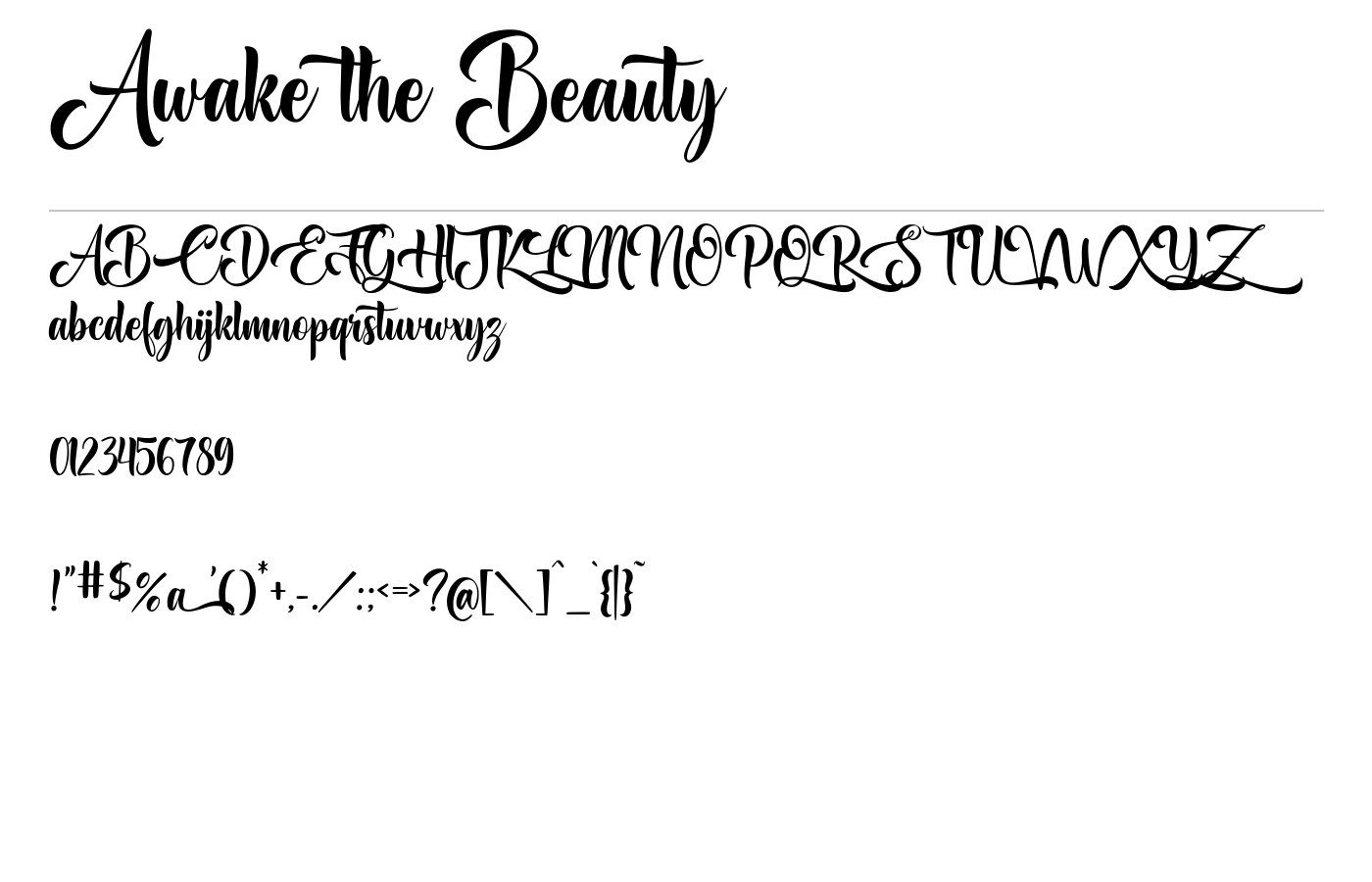
Awake the Beauty is an elegant, script-style font with flowing, brush-like strokes that convey a sense of grace and sophistication. Its bold weight combined with smooth curves and decorative swashes makes it perfect for luxury branding, invitations, and eye-catching headlines, adding a refined, artistic touch to any design. This font’s distinct personality shines in fashion, beauty, and lifestyle projects where a stylish and modern flair is desired.
Awake the Beauty Font
About Awake the Beauty Font